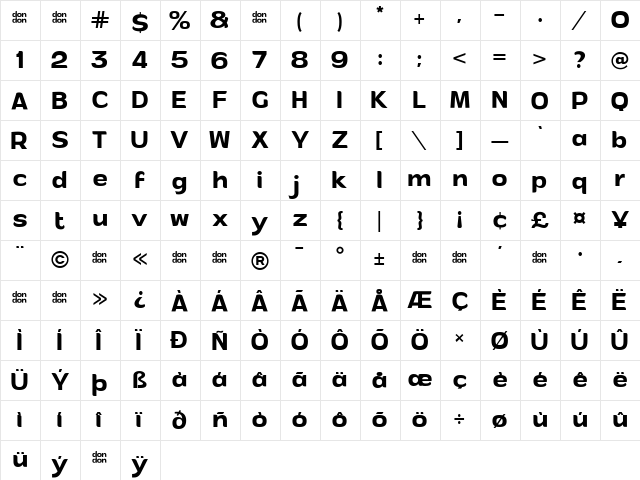
Andor PersonalUse
Design Context for Andor Typeface
Andor takes a measured approach to typography — its balanced proportions and neutral character make it a reliable workhorse for both digital and print work.